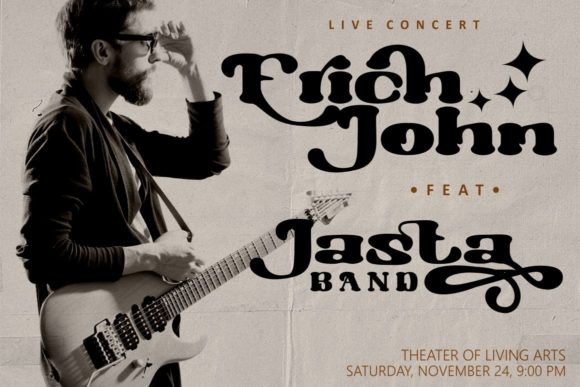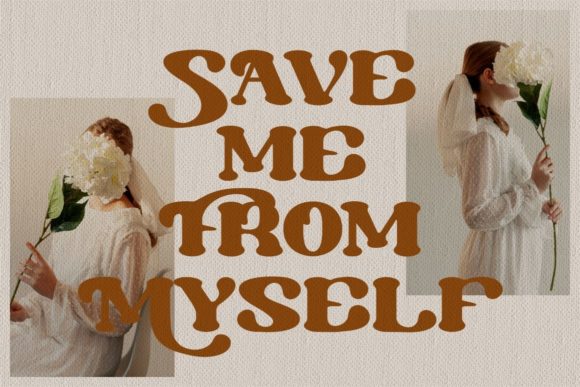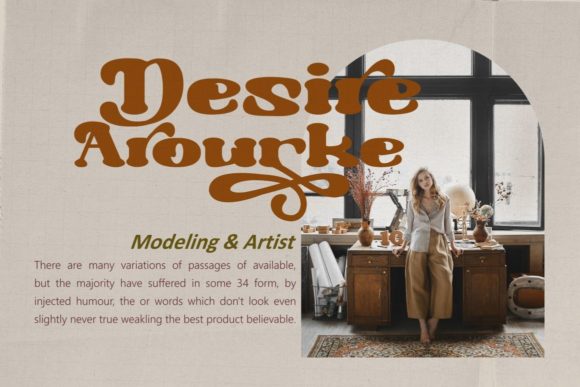
Introduction to Morrello Font
Morrello is a cool and modern display font.
It will add a luxury spark to any design project that you wish to create This font is PUA encoded which means you can access all of the glyphs and swashes with ease.
Key Features of Morrello Font
Why Choose Morrello Font?
Morrello Font offers exceptional quality and versatility, making it a valuable addition to your design toolkit. Whether you’re creating for personal projects or commercial use, Morrello Font delivers professional results.